Free and Premium Quality Fonts - Best Premium FontsIt comes in three. Modern sans serif fonts have more minimal designs. A modern font generator.
Modern fonts are styles that are new to our present time and differ from the remote past.
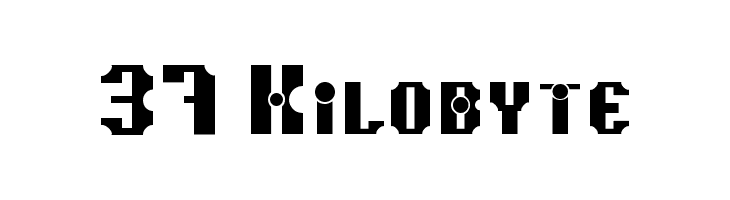
Modern fonts maker. Gorgeous cool text generator or typography is likely to make your design seem attractive. Opt for the text you want to use. Enter your usual text here and it will generate tons of fancy texts along with assorted cursive texts. Liz withers created moka as a modern display type for a coffee logo.
Mixfont is a fun and simple way to discover and visualize new fonts. In the advertising world modern fonts envoke feelings of intelligence style and exclusivity with a contemporary flair. Find 50 design templates showcasing some the best modern fonts and ideas for how to use them to help get you started. This modern font is circular and has perfectly rounded terminals and a soft geometric feel to it.
Modern script and modern calligraphy styles are a huge departure from traditional calligraphy and cursive handwriting. Upload your own fonts to use in your presentations infographics and reports. Amp up your next social media post flyer video or presentation with a modern font. The client didnt choose this logo and liz didnt want to waste such a great font so its up on behance for free download.
The slight curves that grace the otherwise geometric letters make this font beautifully modern and easy to use. Browse worry free commercial use fonts web fonts and app fonts tagged modern calligraphy at fontspring. The modern font style is simple minimal and slightly futuristic. We have 682 free modern fonts to offer for direct downloading 1001 fonts is your favorite site for free fonts since 2001.
Font text generator may be used for many purposes but theyre some mainstream uses of fancy text. 148 free modern fonts most popular by name. Everything from bold sans serifs for an impactful quote to modern serifs for a clean and sophisticated vibe weve got you covered. Find the perfect font for your next project.